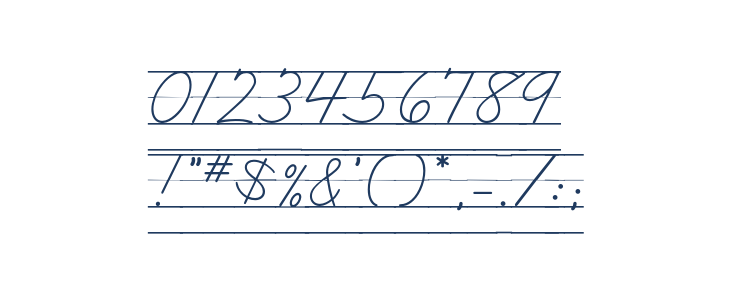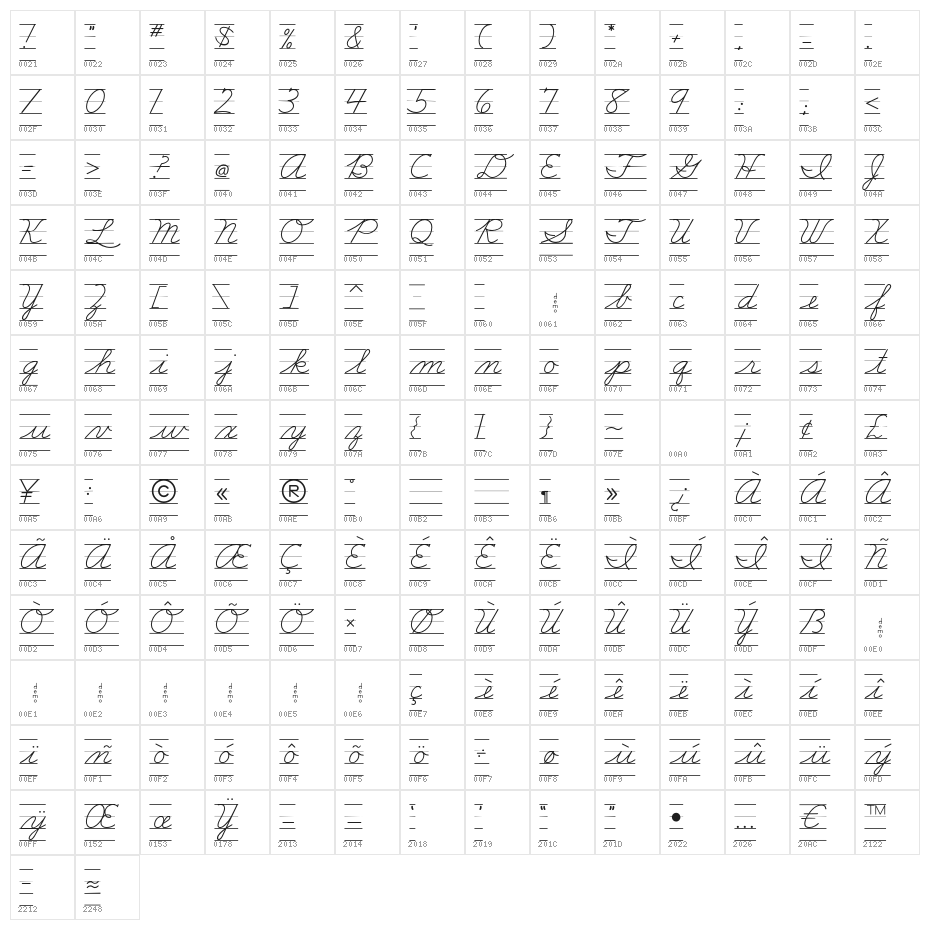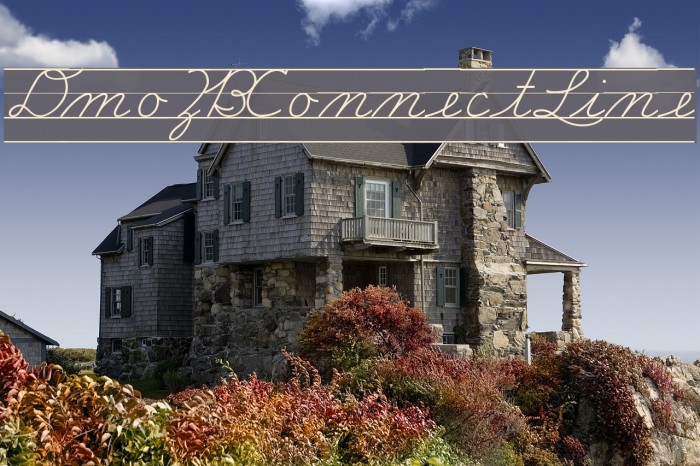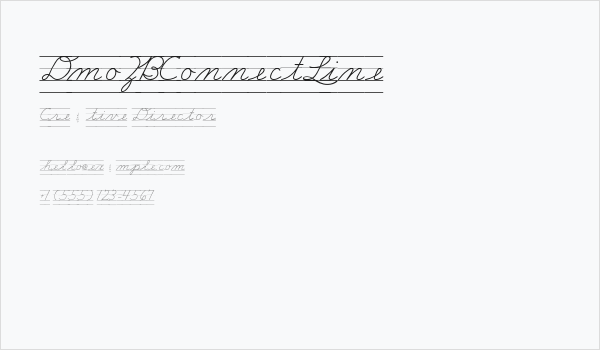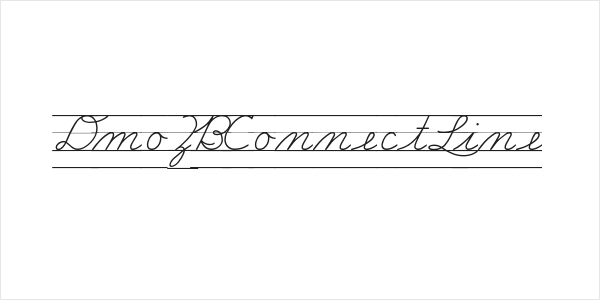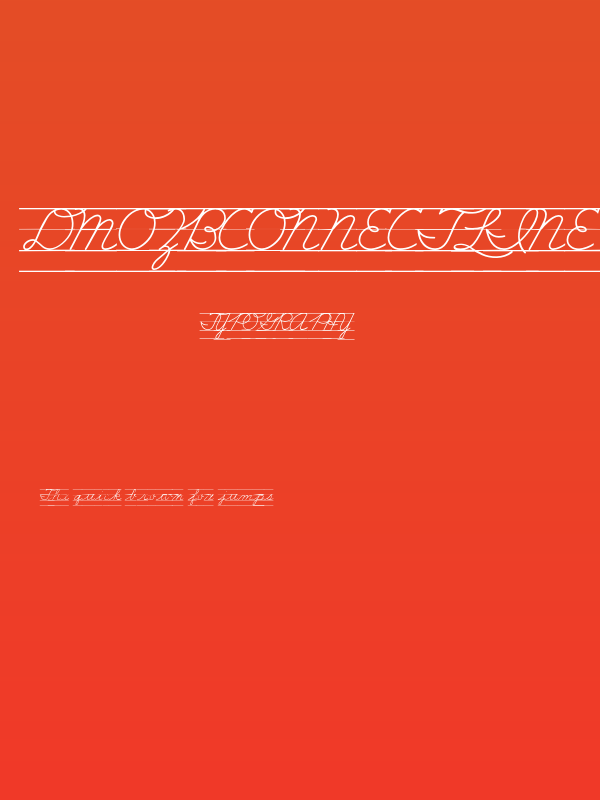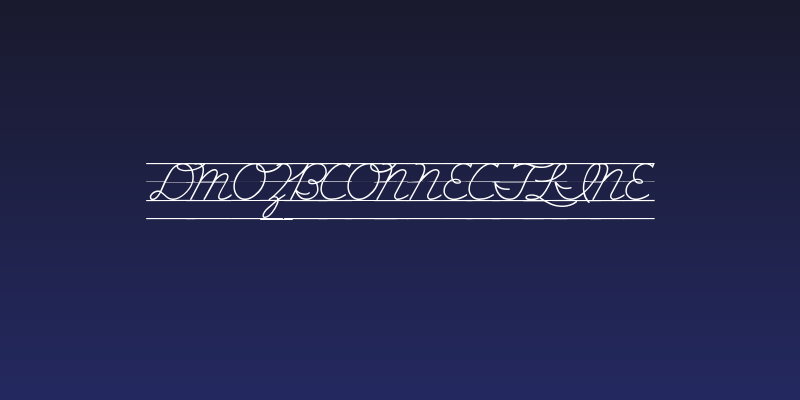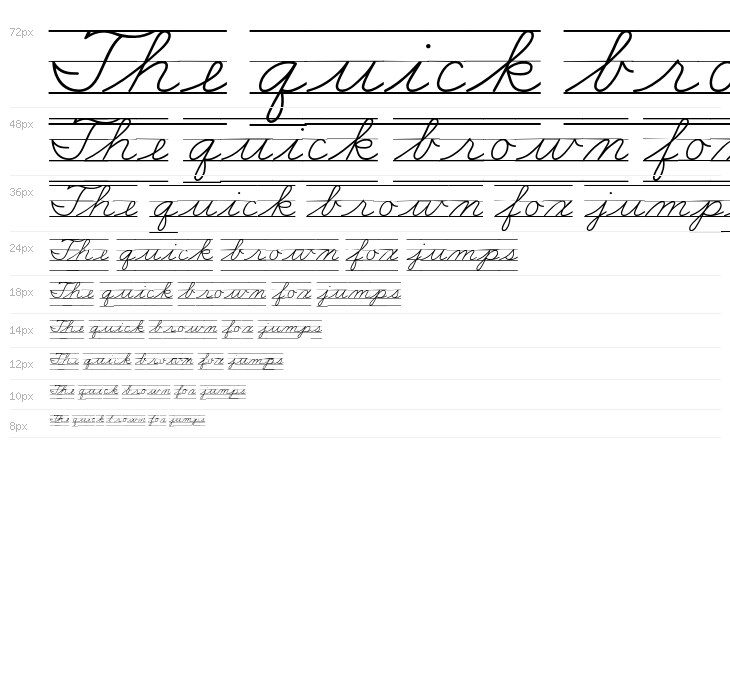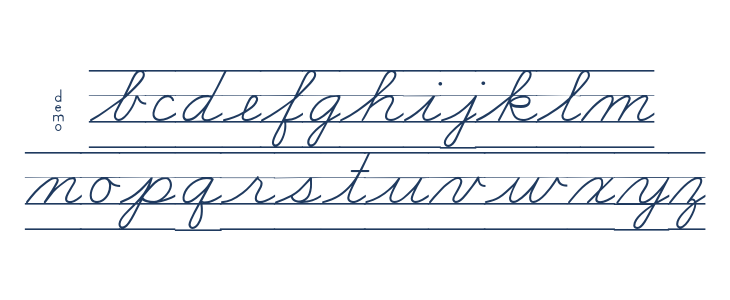
DmoZBConnectLine Font
DmoZBConnectLine Description
This elegant script font features a classic cursive style with smooth, flowing lines that mimic traditional handwriting. Each letter is connected, creating a seamless and continuous look. The uppercase letters are slightly larger and more ornate, while the lowercase letters maintain a consistent and graceful appearance. The numerals are clear and easy to read, matching the overall script style. Special characters are designed to blend seamlessly with the letters, maintaining the font's cohesive and sophisticated look. This font is perfect for projects that require a personal touch or a formal, elegant appearance.
Overall StyleClassic
Use CaseLogos, Invitations, Personal Correspondence
Proposed ProjectsIdeal for wedding invitations, elegant branding, personal stationery, and formal event programs.